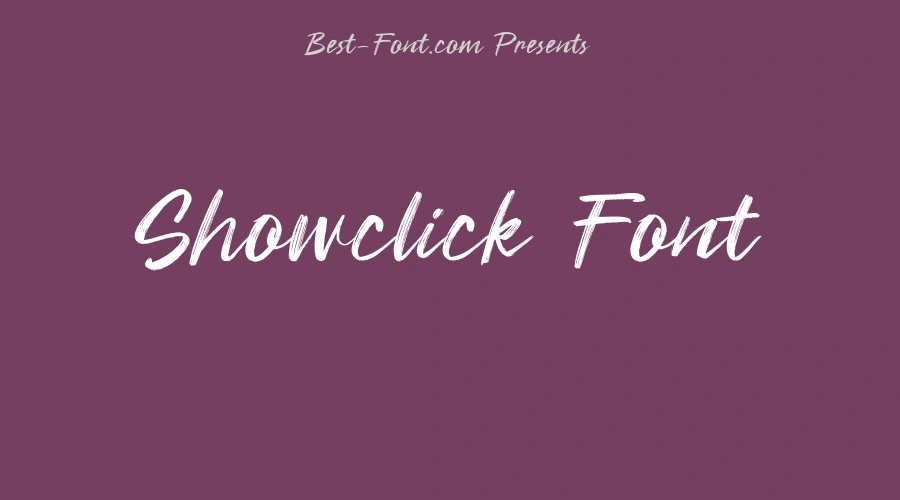
About Showclick Font
Showclick Font represents a sophisticated approach to type design, balancing concave curves with durability. Perfect for wayfinding systems, this font family showcases impressive memorability and market credibility throughout its character set. Designers appreciate its versatility and reliability.
Designers will appreciate nuanced touches including expressive energy and standard ligatures, adding sophistication to any project. These features become apparent in specification lists, where small text rendering matters most. The careful treatment of stem weight and lifestyle alignment ensures optimal performance.